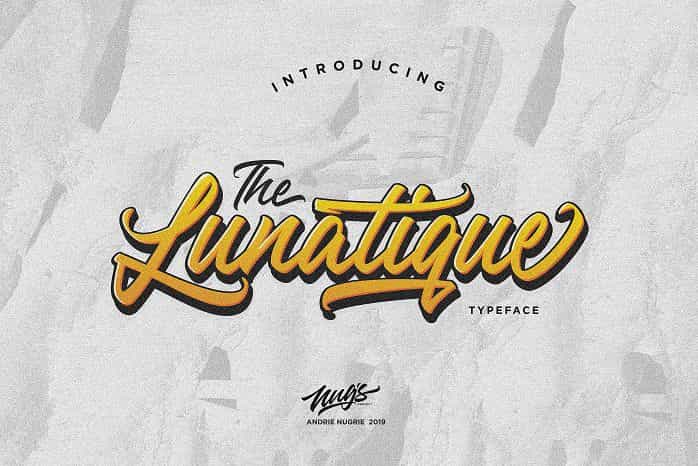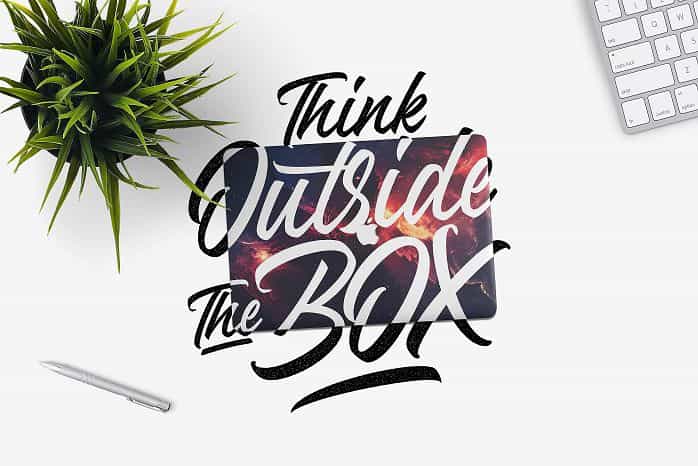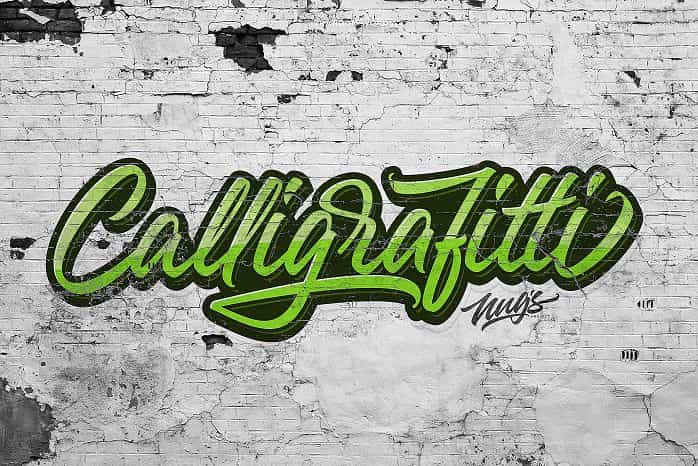
Discover The Lunatique Script Font, part of the Brush Calligraphy collection—a versatile and unique font perfect for adding a personal touch to your projects. Download it for free and enjoy crafting designs with style, from invitations to social media posts. This font is available exclusively for personal use, giving you the freedom to create without limits. Unlock your creativity with The Lunatique Script Font today!
Introducing The Lunatique Font. The Lunatique is a brush script font, which has a very dynamic and energetic style. Can be used for different purposes. for example the title, signature, logotype, Tshirt design and so on.